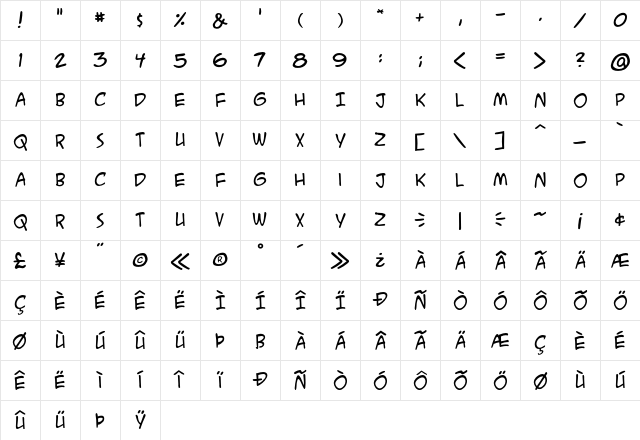
ACME Secret Agent BB Regular Free Font
ACME Secret Agent BB Regular
Foundry: Nate Piekos. Blambot.com
Designer: Nate Piekos
Complete ACME Secret Agent BB Regular glyph index. Displaying only characters natively supported by ACME Secret Agent BB Regular font.
Design Context for ACME Secret Agent BB
ACME Secret Agent BB is a composed and adaptable typeface that performs quietly and consistently across a wide range of design contexts.
Who designed the ACME Secret Agent BB Regular font?